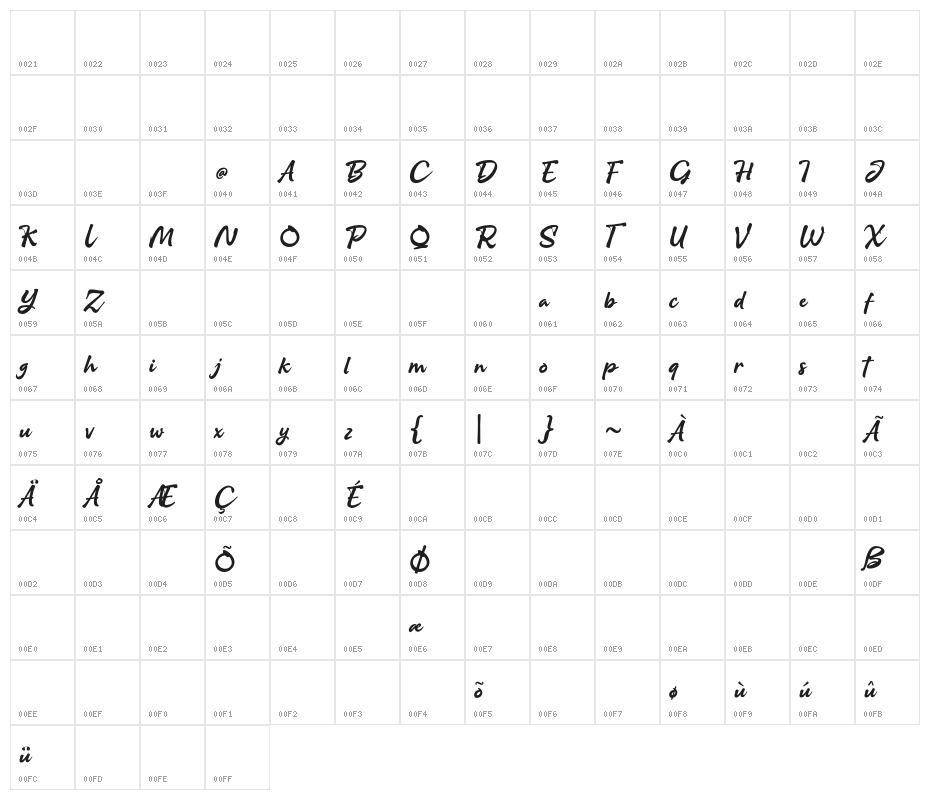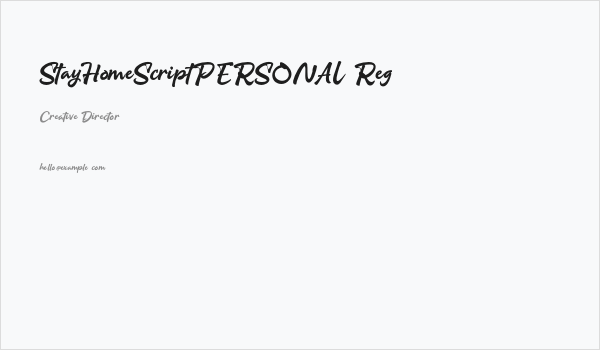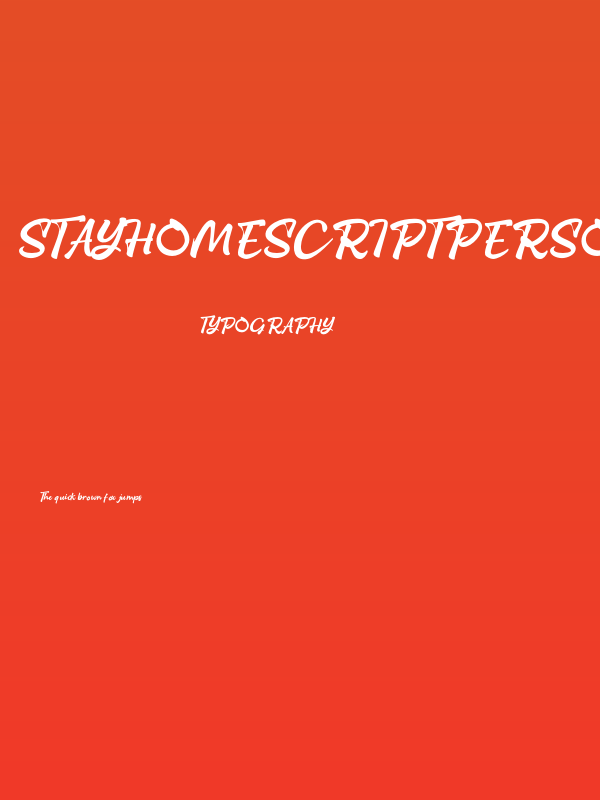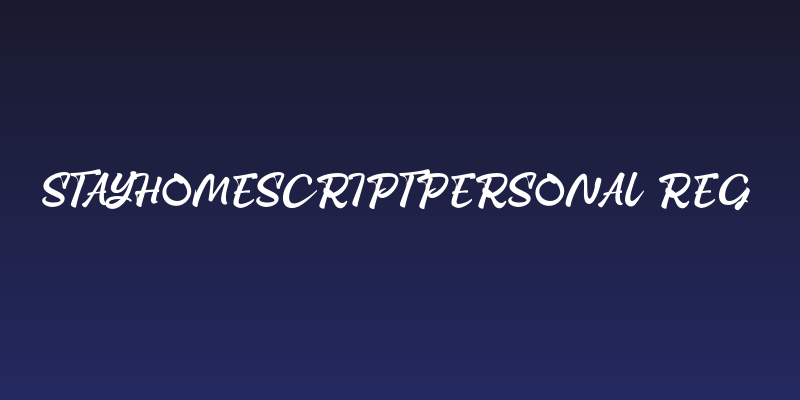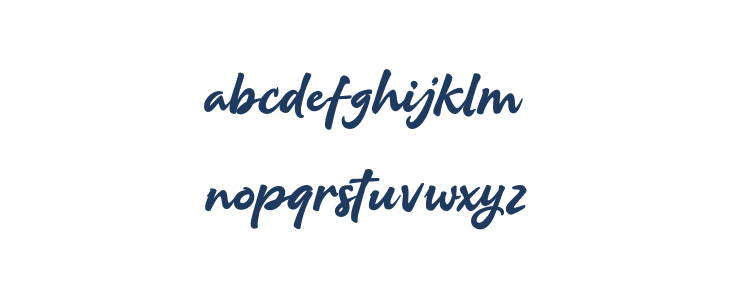
StayHomeScriptPERSONAL-Reg Font
StayHomeScriptPERSONAL-Reg Description
This font exudes a casual and friendly vibe with its flowing script style. The characters are connected in a smooth, cursive manner, giving it a handwritten appearance. The uppercase letters are slightly more ornate, with elegant loops and swirls that add a touch of sophistication. The lowercase letters maintain a consistent flow, enhancing readability while retaining the script's charm. The overall design is balanced, with moderate spacing between characters, ensuring clarity without sacrificing its artistic flair. This font is well-suited for projects that require a personal touch, such as invitations, greeting cards, and branding materials.
| Proposed Projects | Ideal for invitations, greeting cards, branding, and personal projects. |